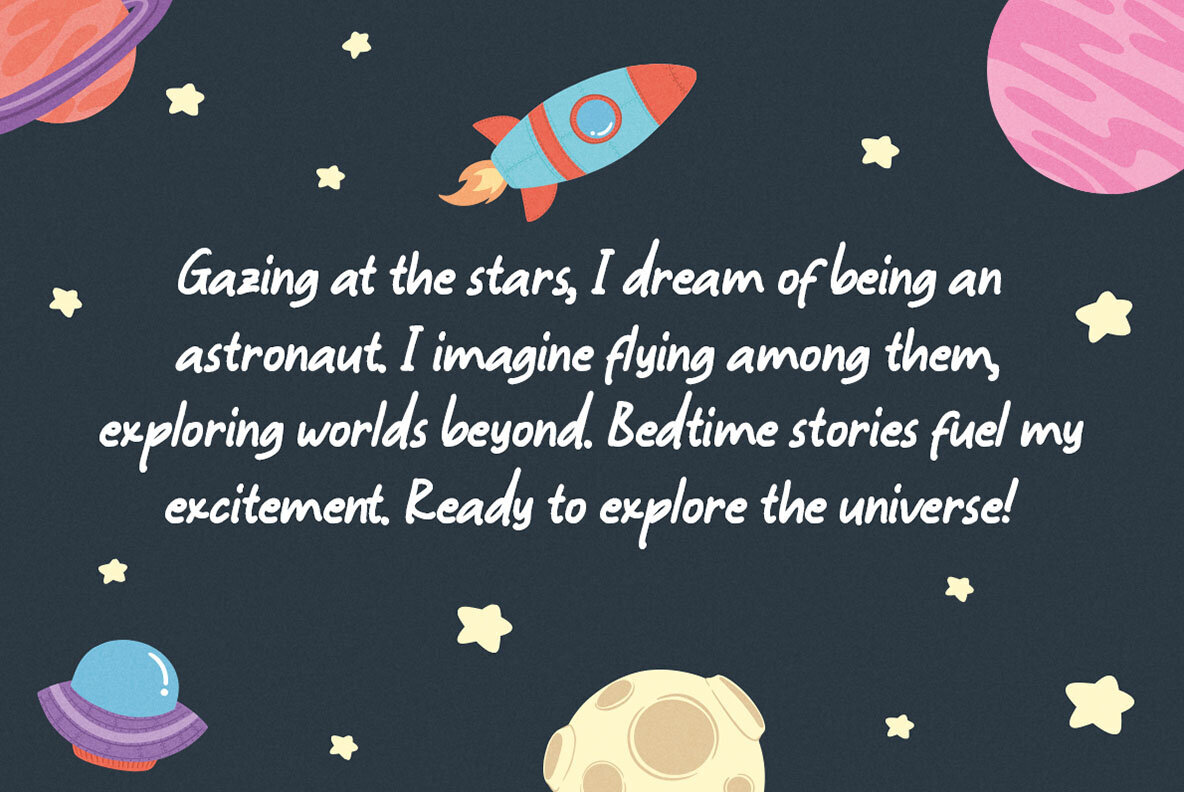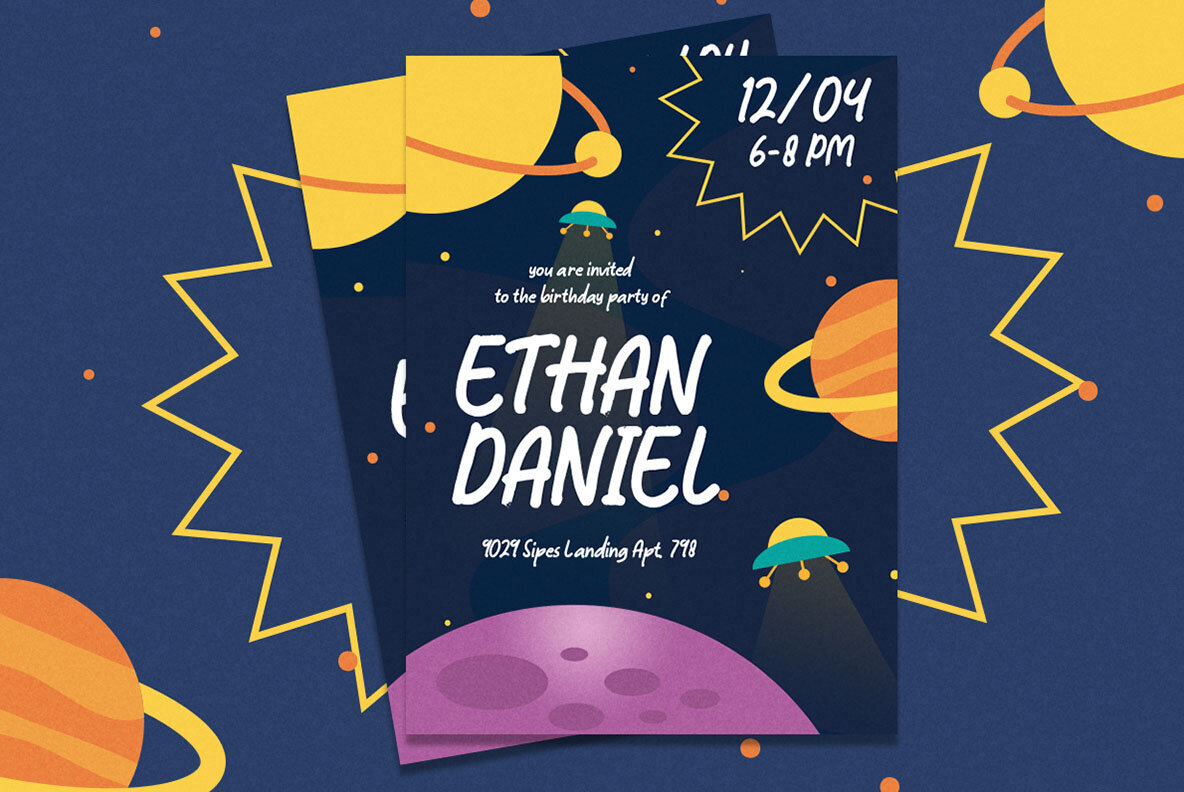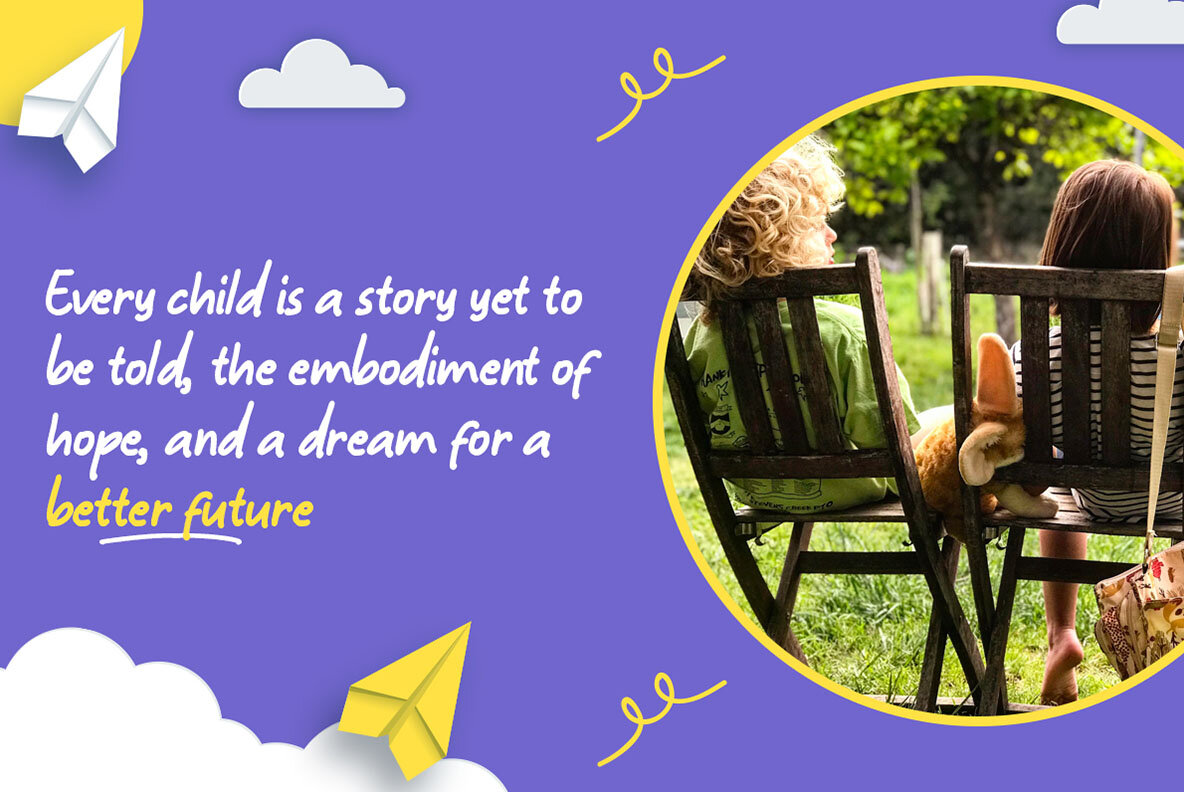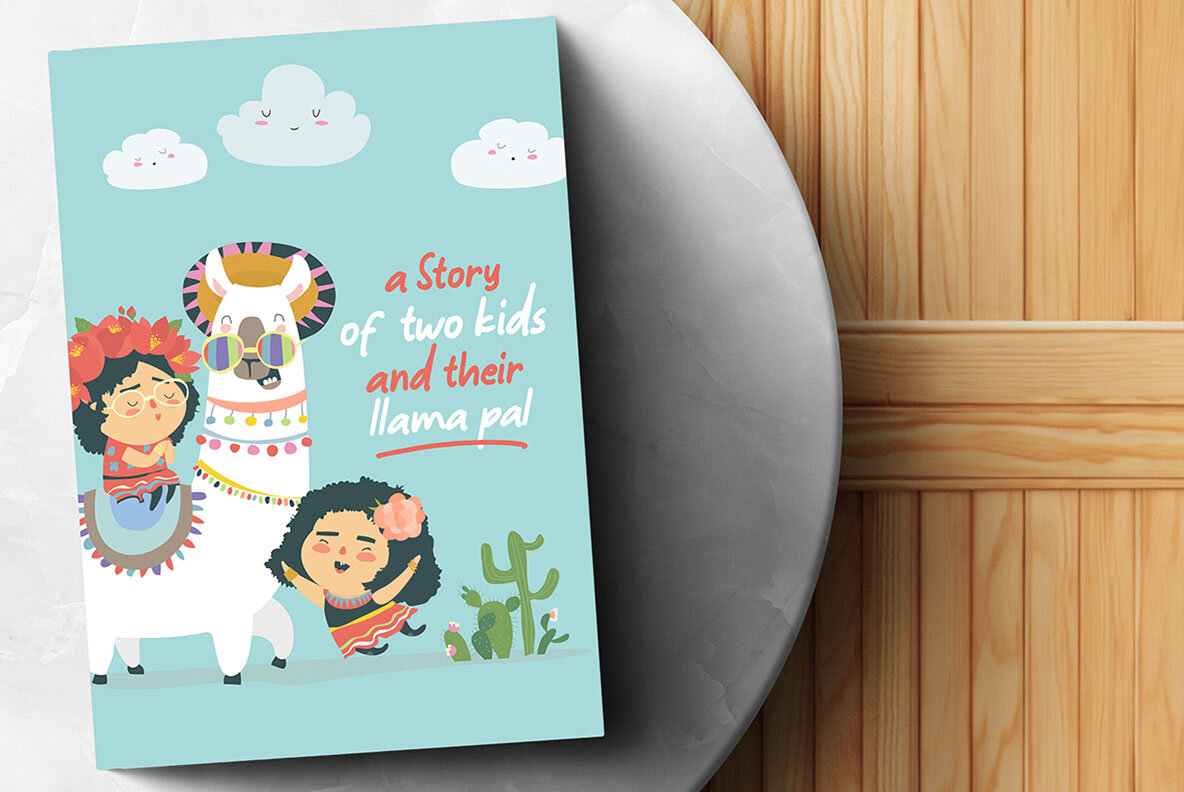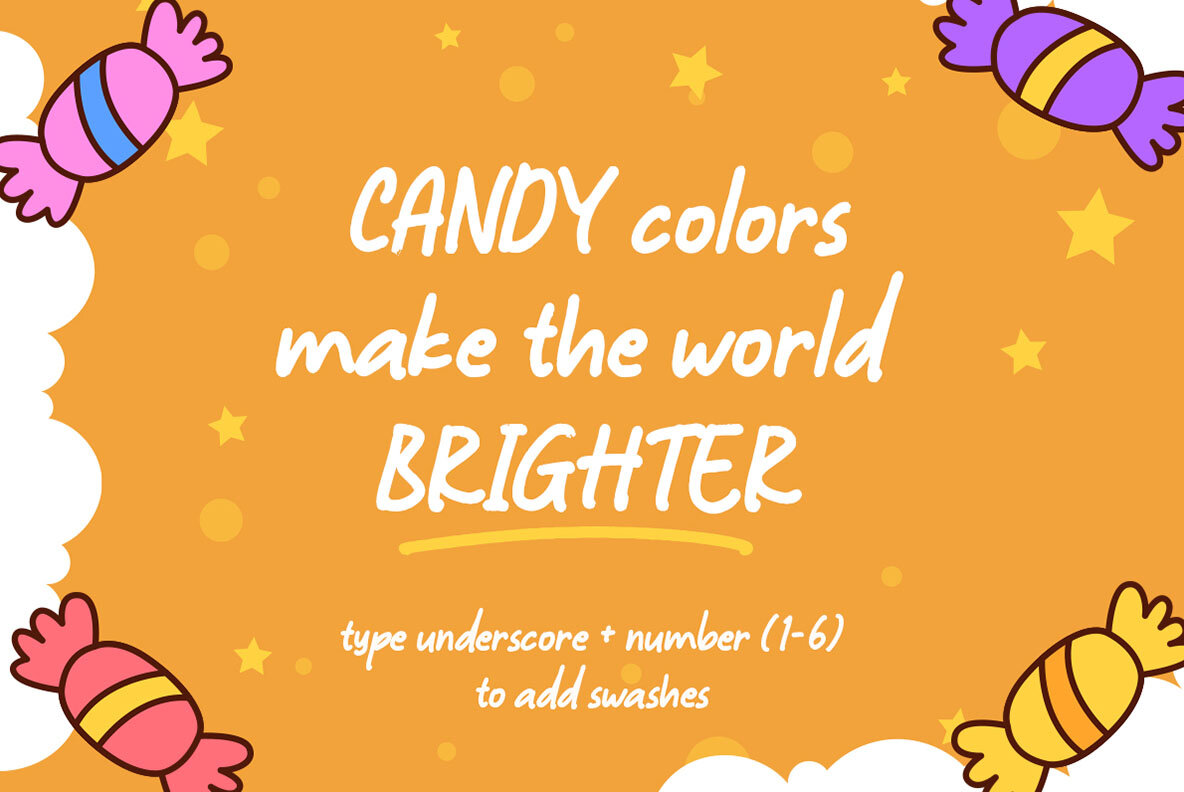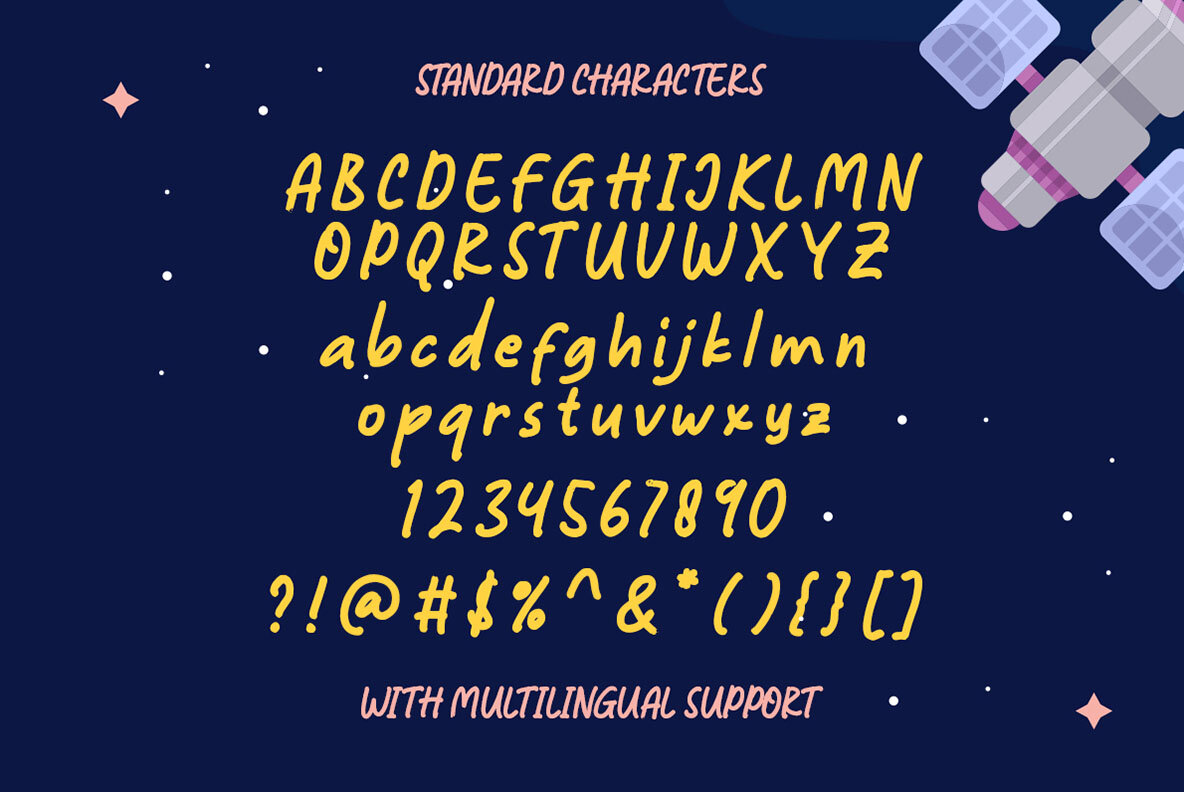
Space Explorers Font
Space Explorers Regular
Space Explorers by Letterhend Studio is a casual handwritten font designed to excel in various applications. Ideal for logos, invitations, labels, magazines, books, greeting or wedding cards, packaging, fashion, makeup, stationery, novels, and advertising purposes. For best results, use a program that supports OpenType features and Glyphs panels, such as Adobe applications and Corel Draw, to explore all glyph variations.Space Explorers: Versatile Casual Handwritten Font